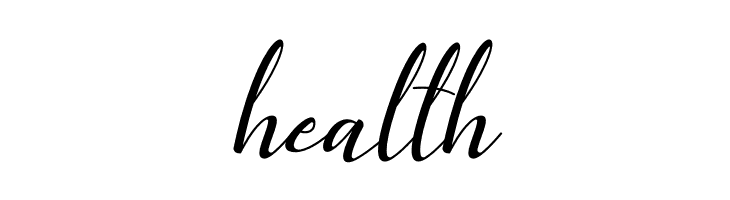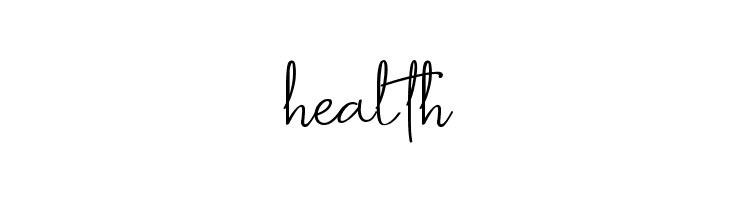
An elegant, flowing script font with ornate uppercase and graceful lowercase letters.
An elegant script font with graceful curves and delicate strokes, perfect for sophisticated designs.
Playful handwritten font with a casual style.
An elegant, flowing script font with high contrast and modern appeal.
A whimsical and artistic script font with interconnected loops and curves.
A lively, handwritten cursive font with dynamic strokes and a playful style.
An artistic and decorative script font with fluid, cursive strokes.
An elegant cursive script font with flowing curves and artistic flourishes.
A bold, expressive handwritten font with brush-like strokes.
A whimsical, cursive font with a flowing, handwritten style.